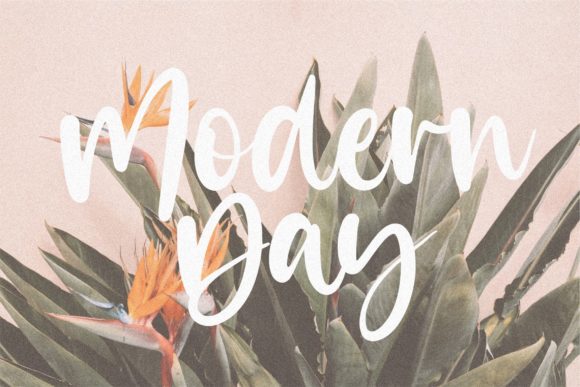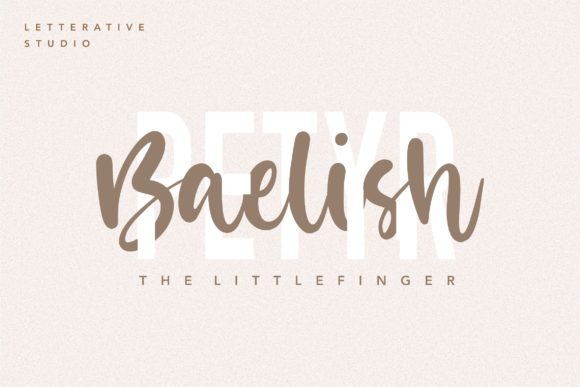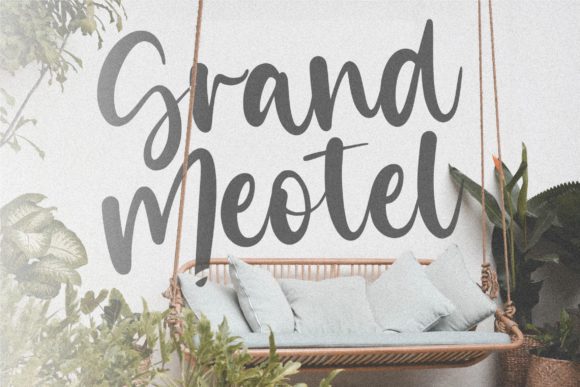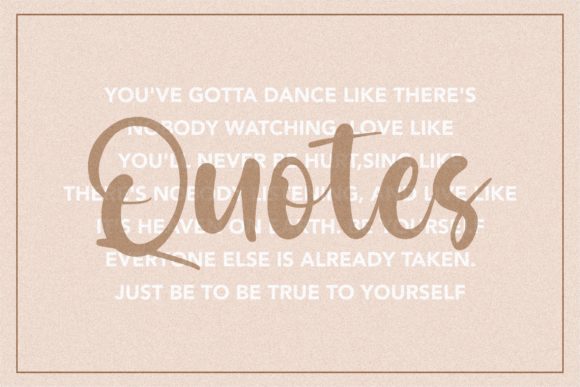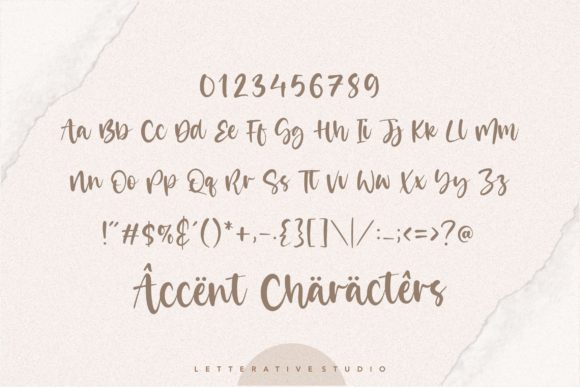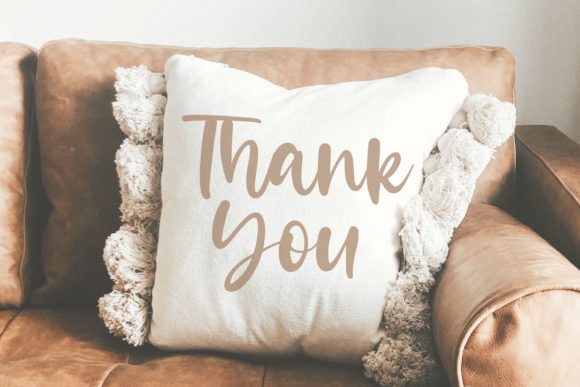
Introduction to Misty Cloud Font
Misty Cloud is a dainty handwritten font.
Its distinct and well rounded letters make this font a masterpiece Fall in love with its incredibly versatile style and use it to create spectacular designs.